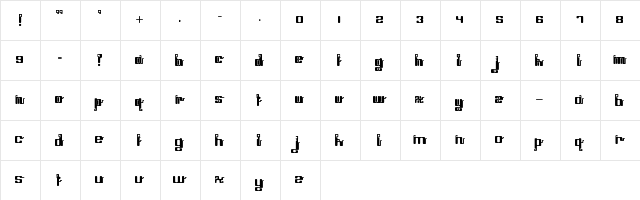
Jelly Bean Regular
| Designer | Wilson Thomas |
Design Context for Jelly Bean Typeface
Jelly Bean is a composed and adaptable typeface that performs quietly and consistently across a wide range of design contexts.